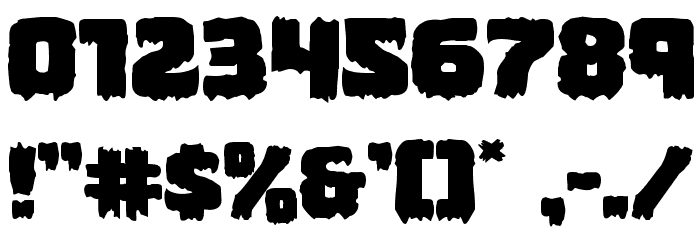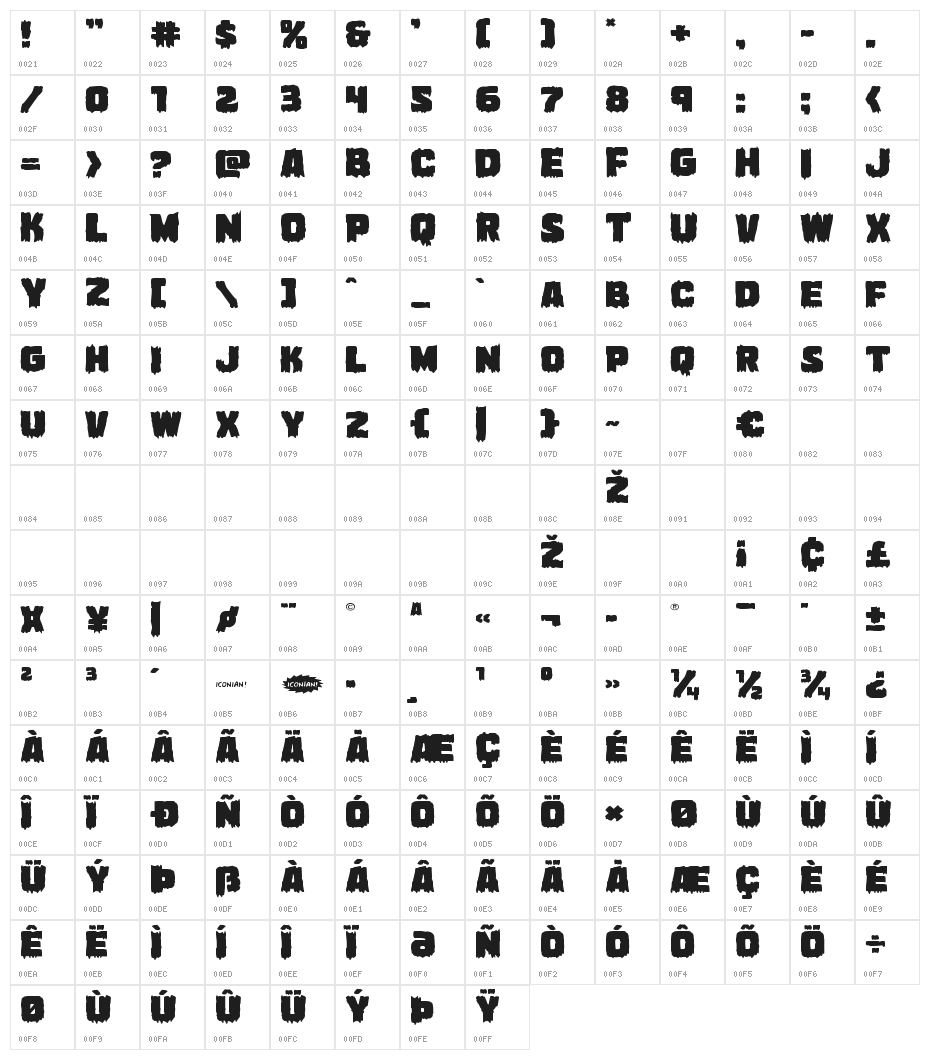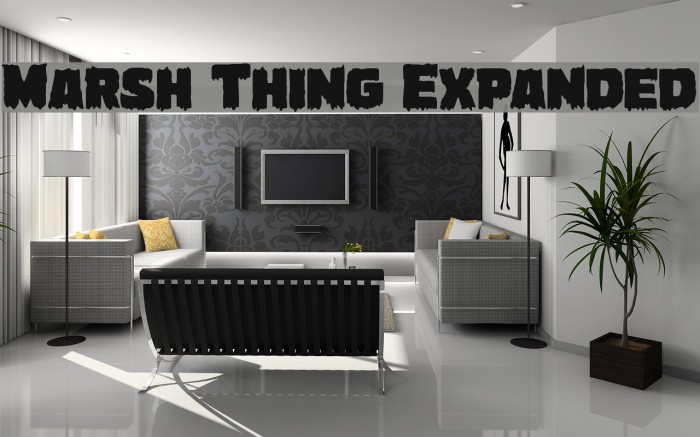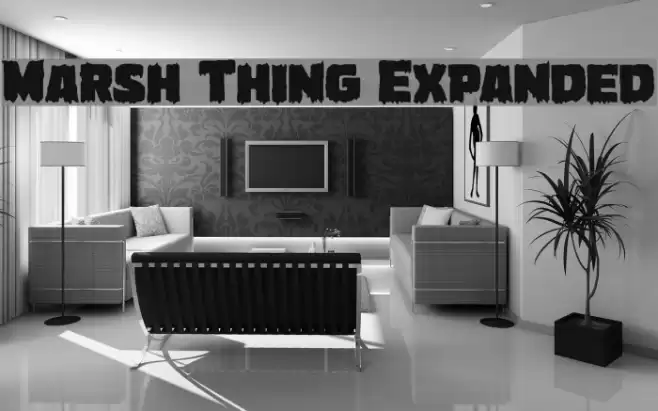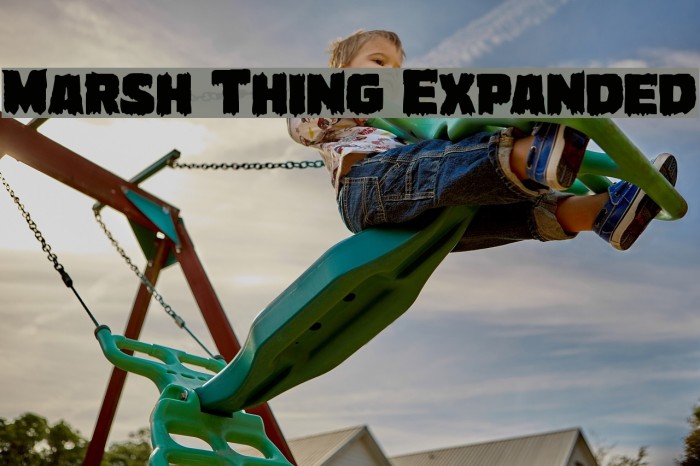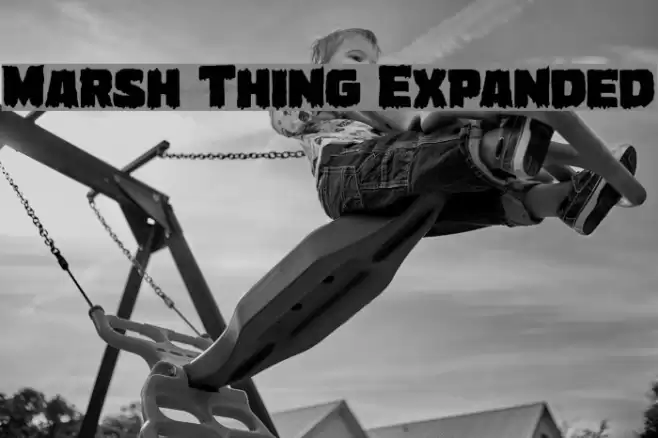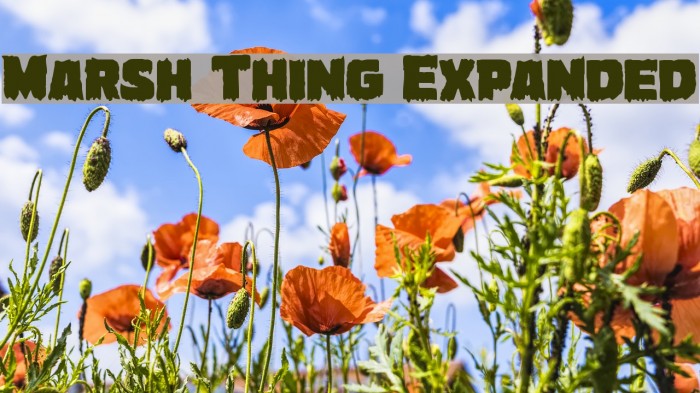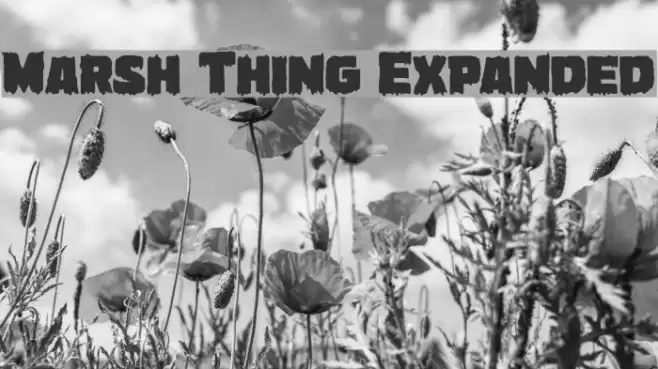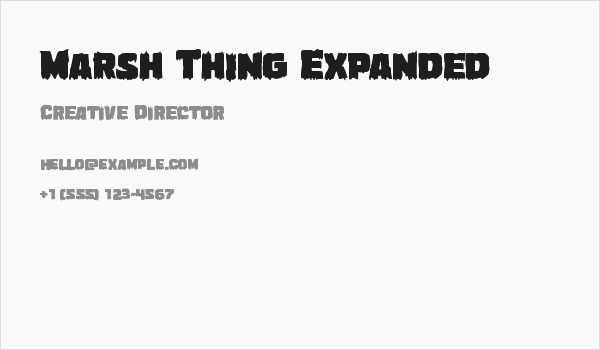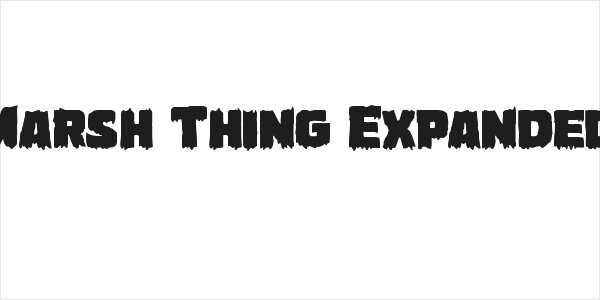
Marsh Thing Expanded Font
Marsh Thing Expanded Description
This font features a bold and rugged design, reminiscent of swampy textures and organic forms. The characters are heavily stylized with uneven edges, giving them a unique, distressed appearance. The uppercase and lowercase letters maintain a consistent thickness, with a slightly expanded width that enhances their presence. The numbers and special characters follow the same design principles, ensuring a cohesive look across all glyphs. This font's distinctive style makes it ideal for projects that require a bold, eye-catching typeface with a touch of the unconventional.
| Proposed Projects | Perfect for horror-themed posters, Halloween events, video game titles, or any project needing a bold, unconventional typeface. |